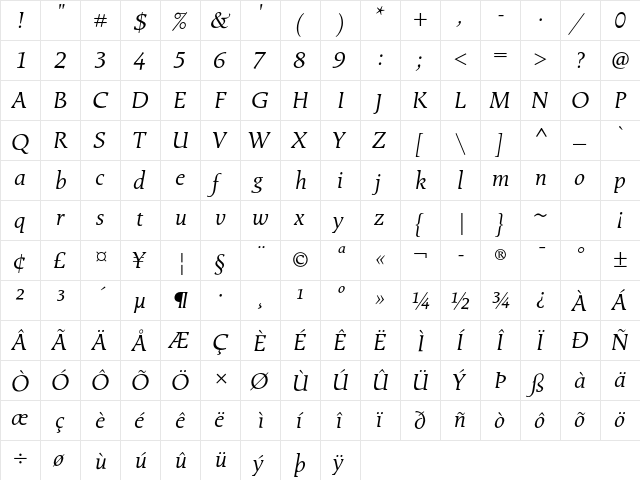
Exlibris Std Italic
| Designer | Bo Berndal |
Design Context for Exlibris Std Typeface
Exlibris Std offers clean, dependable letterforms without strong stylistic allegiance, making it a practical choice for designers who need flexibility. The slanted form adds forward momentum and visual energy.
Pro Tip: Use Exlibris Std for emphasis, pull quotes, and subheadings where its slanted energy can add rhythm to the layout.